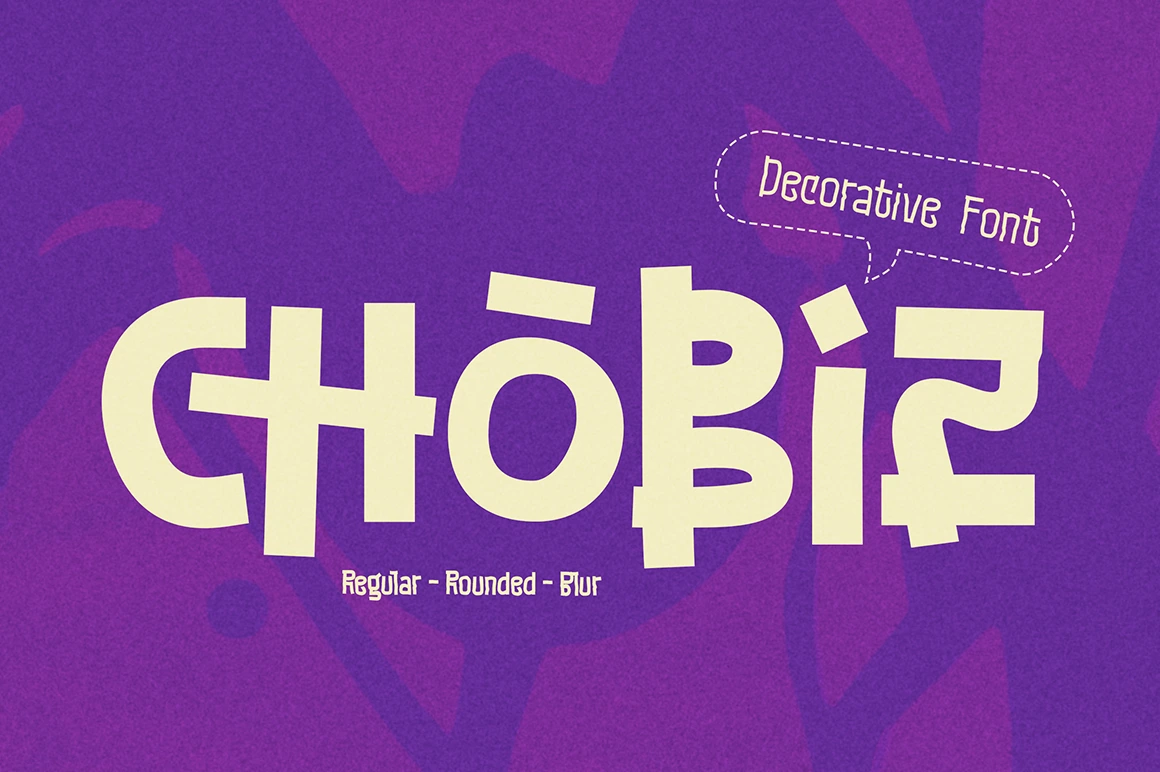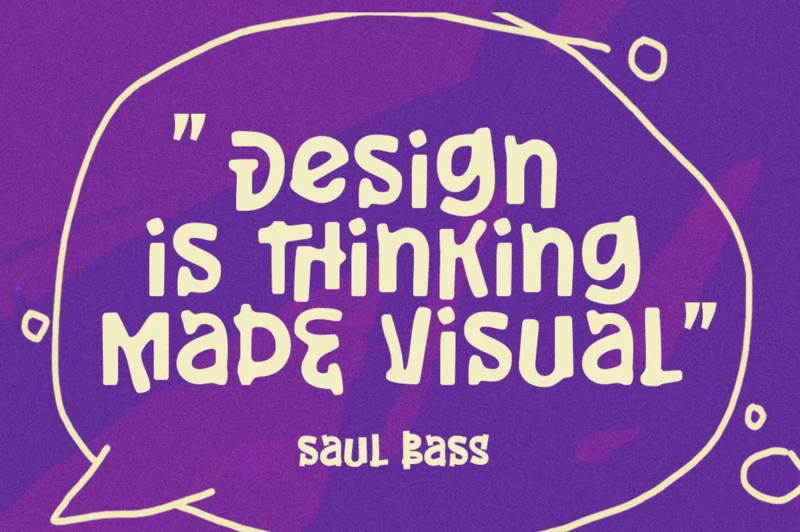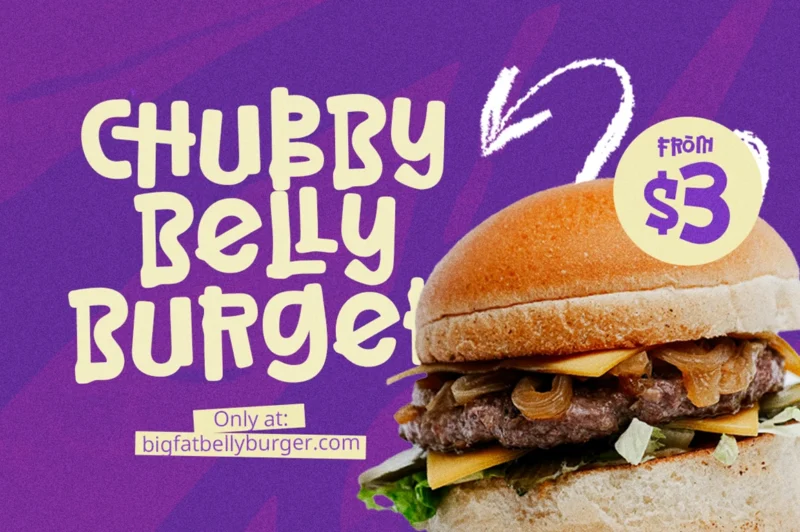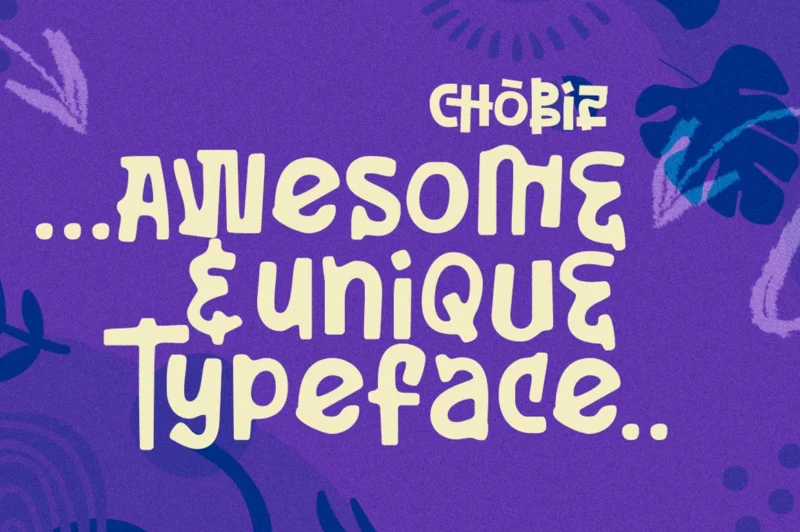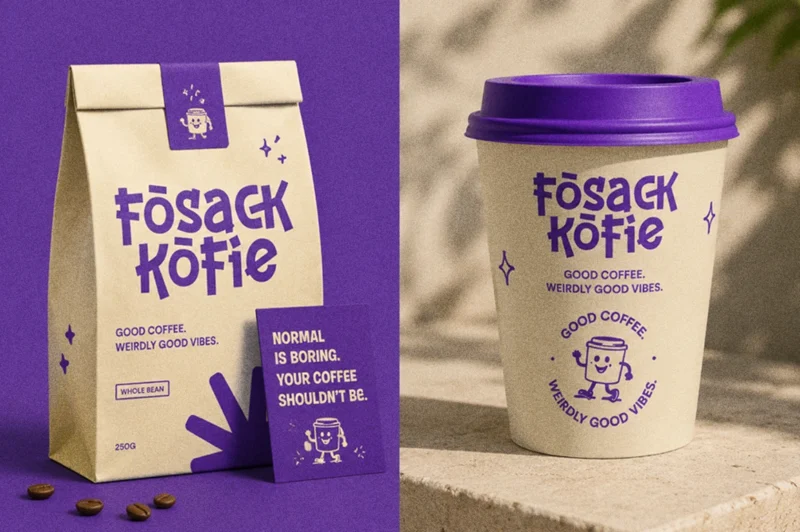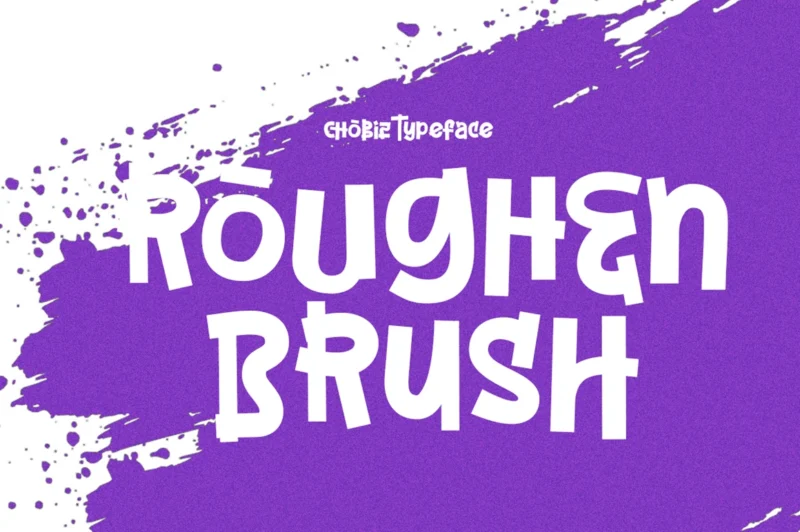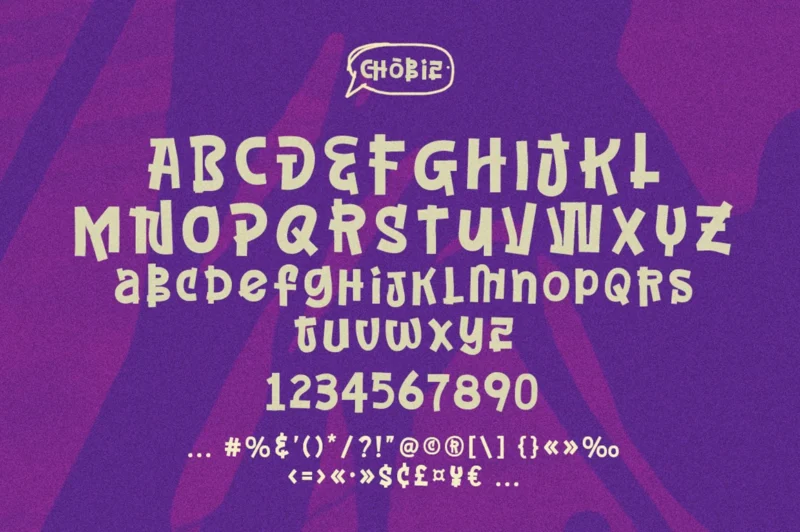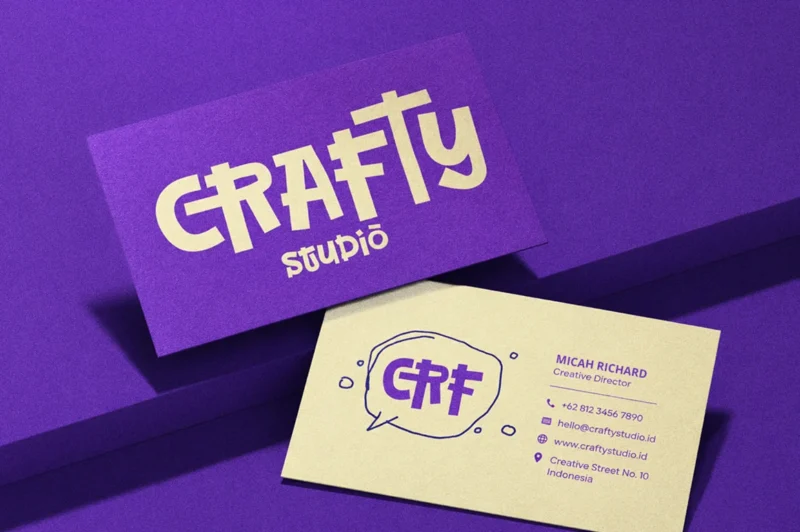
Chobiz Regular
Chobiz Blur
Chobiz Rounded
Chobiz is a unique modern decorative font designed with a bold, creative, and stylish character. The font combines modern shapes with artistic details, making it perfect for creating eye-catching and memorable designs. With its strong visual appearance, Chobiz can instantly bring a fresh and distinctive look to any project. Chobiz is also equipped with stylish ligatures that make the typography feel more natural, dynamic, and visually appealing. Perfect for headers, logotypes, branding, posters, social media graphics, music covers, and modern advertising, this font is made for designers who want their work to look bold, trendy, and unforgettable.
• Unique Decorative Font
• All Caps Font
• Basic Latin Glyphs
• Ligatures and Alternates
• Numeral and Punctuation
• Currencies
• Multilingual Support
Chobiz Font